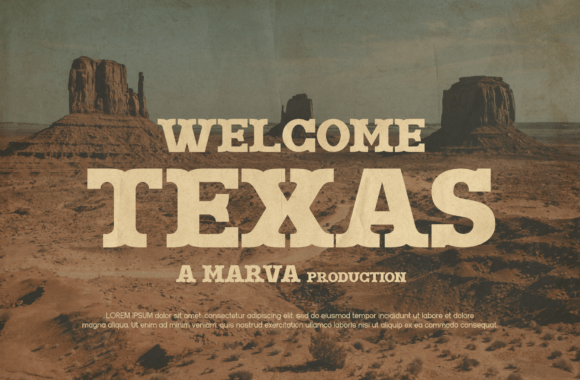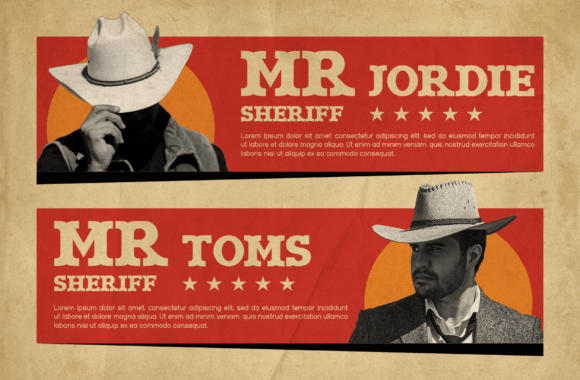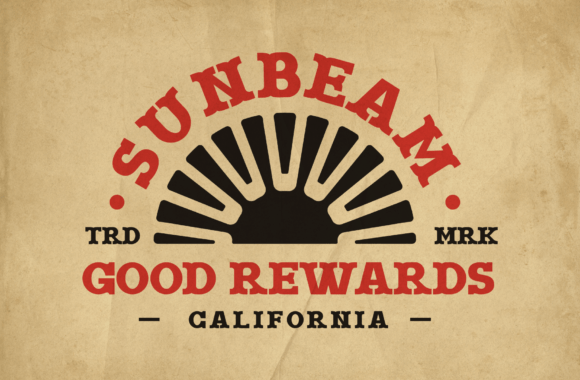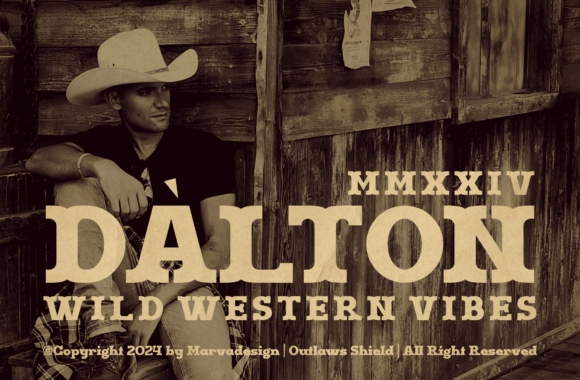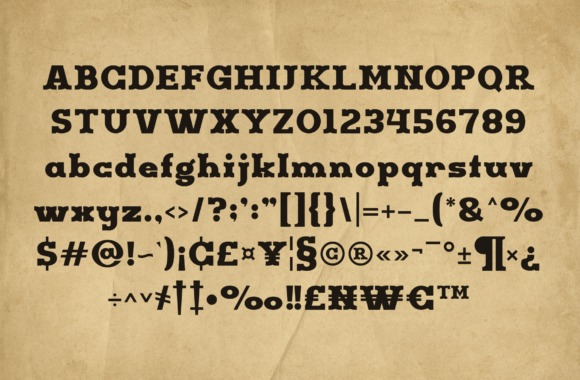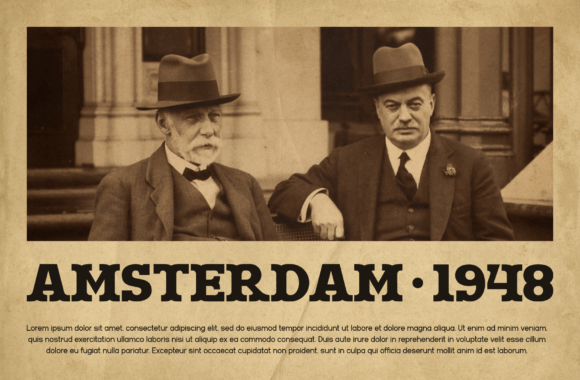
Introduction to Outlaws Shield Font
Introducing **Outlaws Shield** Western Serif font that encapsulates the rugged spirit of the Old West.
With its bold, slab-serif letterforms and subtle serifs reminiscent of cowboy boot spurs, this typeface evokes the essence of the untamed frontier Each character in Frontier Trails is crafted with precision, embodying the strength and resilience of the cowboy lifestyle.
Key Features of Outlaws Shield Font
Why Choose Outlaws Shield Font?